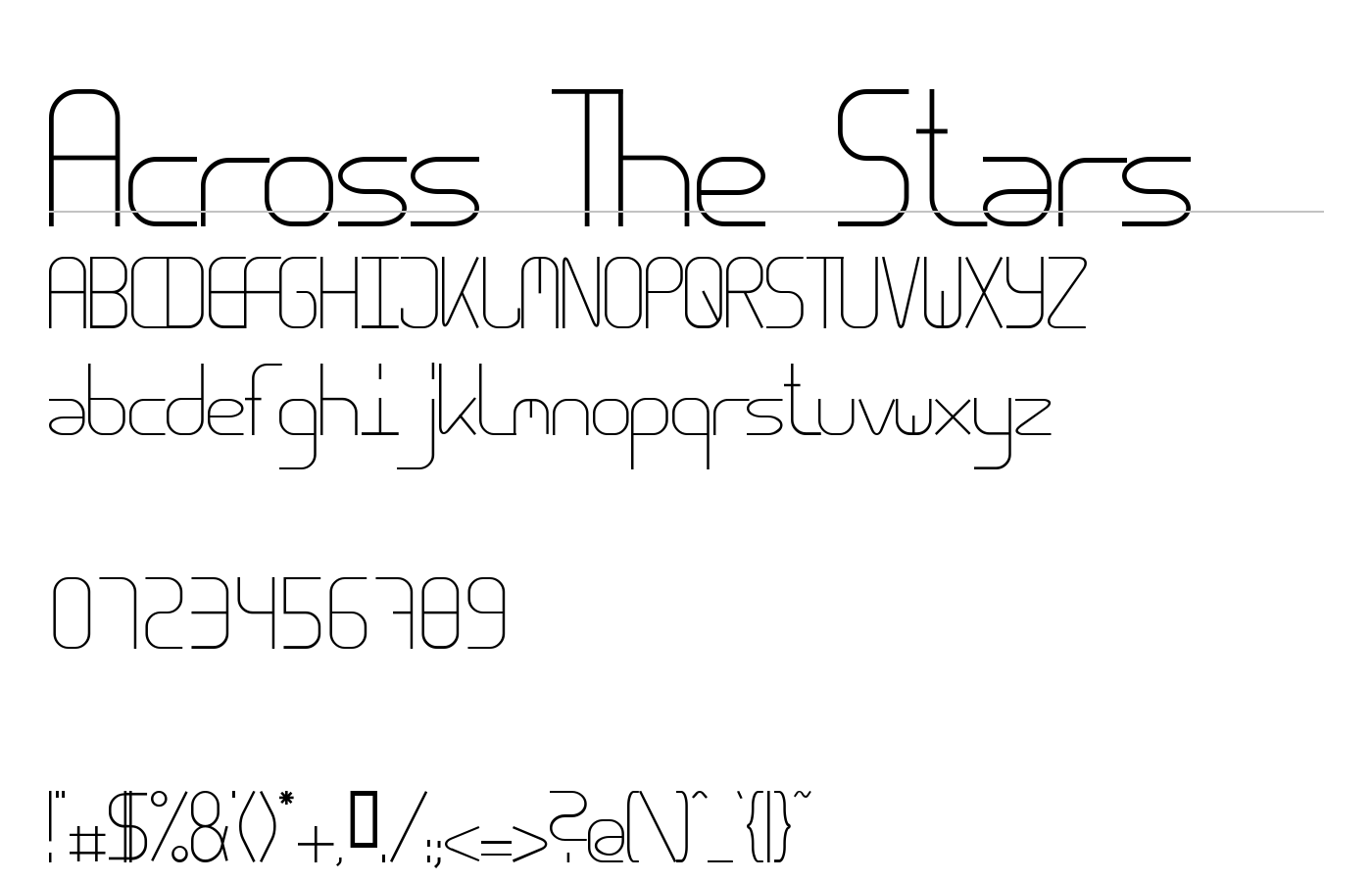
Across The Stars is a sleek, ultra-light sans serif font with a futuristic, geometric design characterized by tall, narrow letterforms and delicate strokes. Its minimal contrast and fine lines give it an airy, elegant feel, making it perfect for modern branding, tech-themed projects, and stylish headlines that need a touch of sophistication. This font works best in large display uses where its unique and refined personality can truly stand out.
Across The Stars Font
About Across The Stars Font